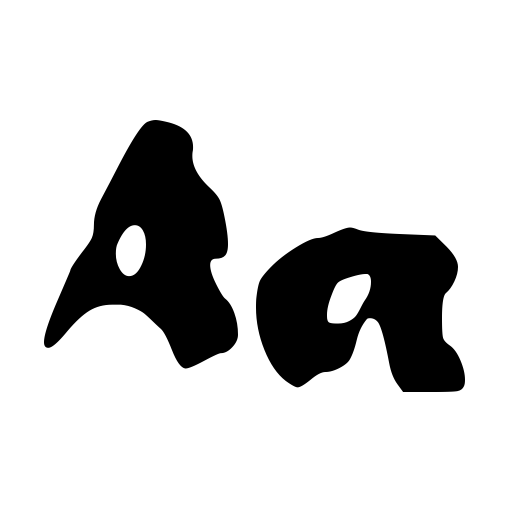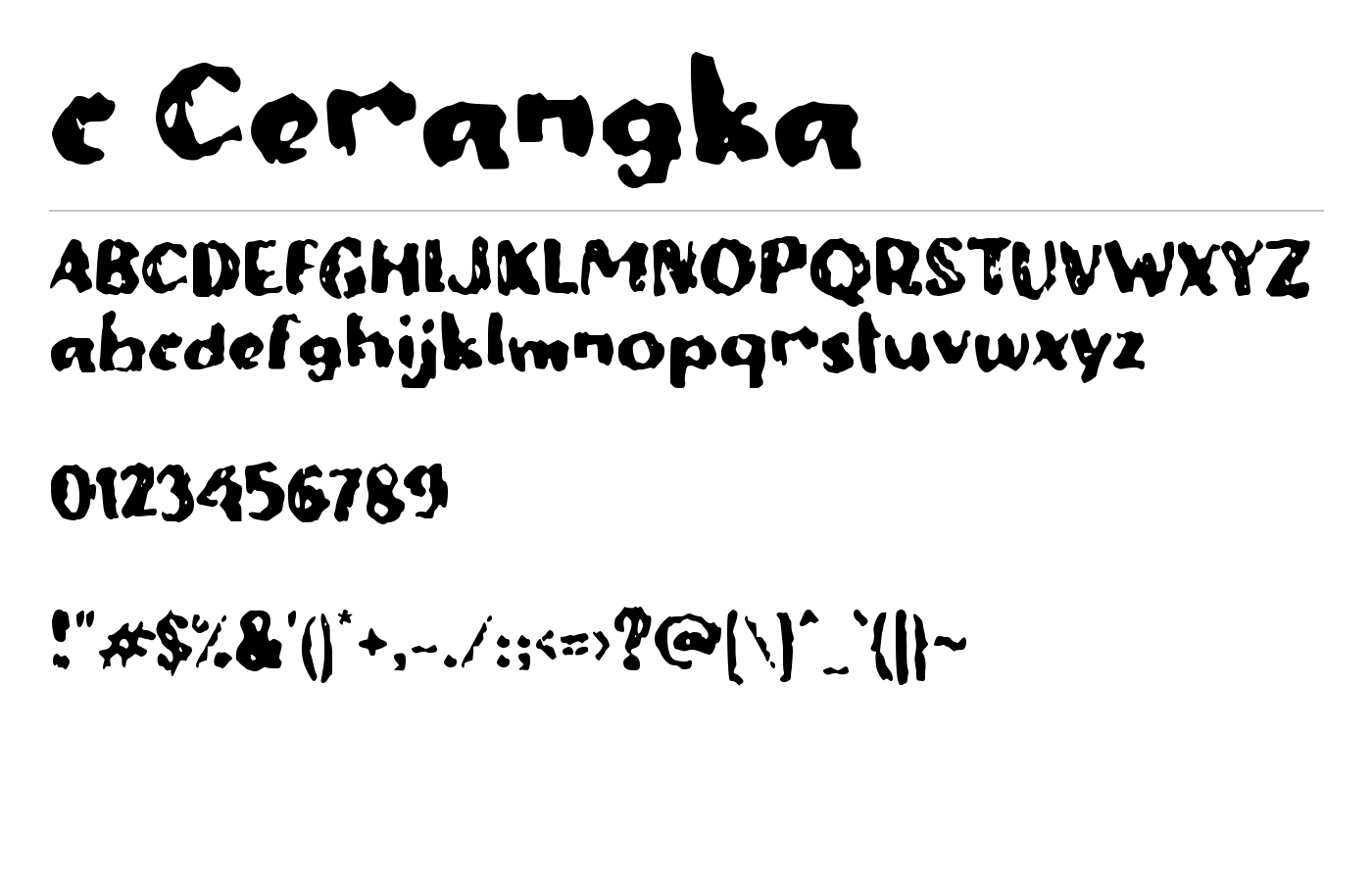
c Cerangka is a bold, playful display font with irregular, organic shapes that give it a hand-crafted, textured feel. Its chunky, uneven letterforms and high contrast between thick and thin areas create a unique, quirky style ideal for eye-catching headlines and creative branding. This font works best for artistic projects, informal posters, and distinctive logos where a fun, unconventional personality is desired.
c Cerangka Font
About c Cerangka Font